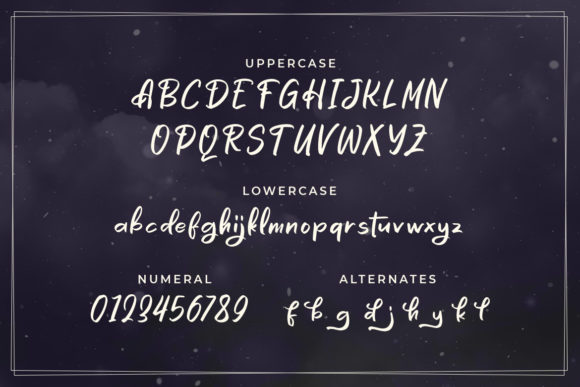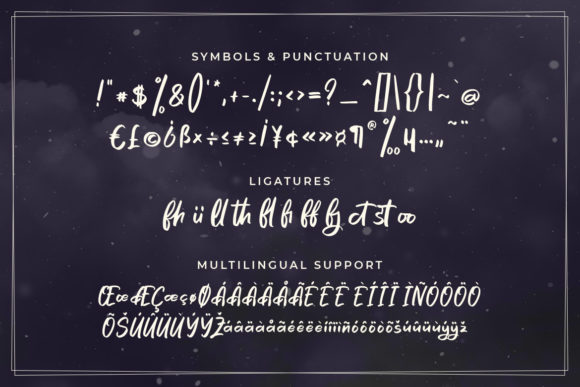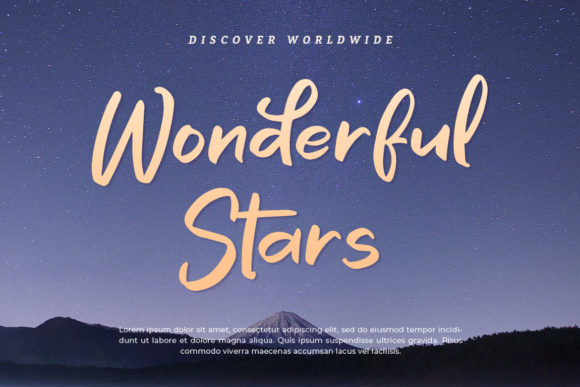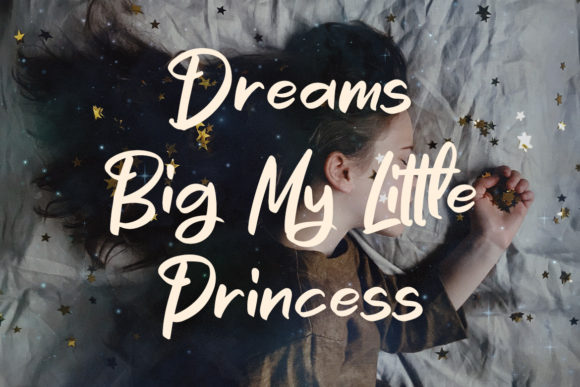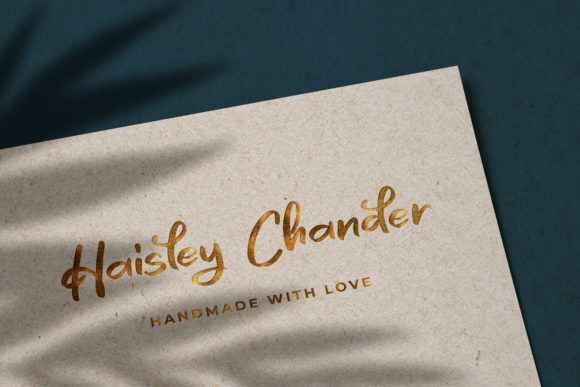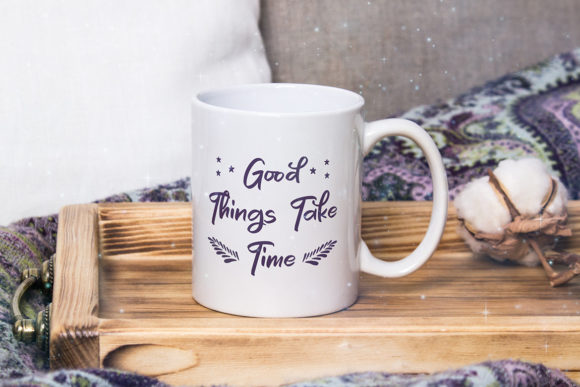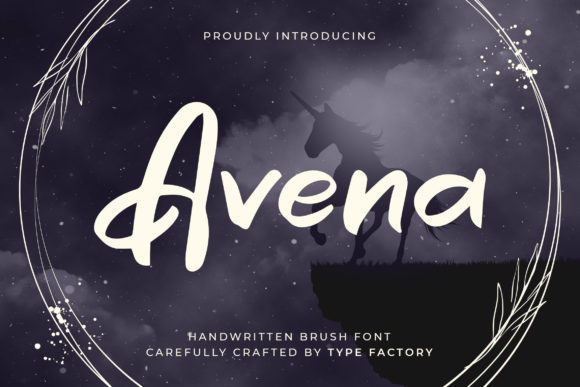
Avena Font: Elevate Your Creativity with Elegance
In the world of typography, few fonts manage to capture the essence of elegance and creativity as effortlessly as Avena Font. This magical script font is carefully crafted with a touch of sophistication, making it an ideal choice for designers, crafters, and anyone looking to add a dash of artistry to their projects. Whether you’re curating a visually appealing Instagram feed or working on DIY projects that demand a personal touch, Avena Font is your gateway to transforming creative ideas into true pieces of art.
The Essence of Avena Font
Avena Font stands out in the realm of script fonts due to its unique blend of fluidity and precision. Each letter is meticulously designed to flow seamlessly into the next, creating a harmonious and visually appealing text that captures the reader’s attention. The font’s elegance is not just in its aesthetic appeal but also in its versatility, making it suitable for a wide range of applications, from digital media to handmade crafts.
Applications of Avena Font
Instagram and Social Media
In the age of visual storytelling, standing out on social media platforms like Instagram is crucial. Avena Font offers a distinctive style that can elevate your posts, stories, and captions, making your content more engaging and recognizable. Its elegant script can add a personal touch to your digital presence, setting you apart from the crowd.
DIY Projects and Crafting
For crafters and DIY enthusiasts, Avena Font opens up a world of creative possibilities. Whether you’re working on handmade cards, crafting personalized gifts, or creating decorative items, this font can add a sophisticated and artistic element to your projects. Its calligraphy script style lends itself beautifully to handwriting and drawing, making your DIY endeavors truly special.
Graphic Design and Art
Graphic designers will appreciate Avena Font for its artistic value and flexibility. It can be used in a variety of design projects, including branding, packaging, and advertising, where a touch of elegance and personality is desired. The font’s unique character can help in creating memorable and impactful designs that resonate with audiences.
Why Choose Avena Font?
- Elegance and Versatility: Avena Font combines elegance with versatility, making it suitable for a wide range of creative projects.
- Easy to Read: Despite its script nature, Avena Font is designed to be clear and easy to read, ensuring your message is conveyed effectively.
- Unique Style: The font’s distinctive style ensures that your projects stand out, adding a personal and artistic touch.
- User-Friendly: Avena Font is easy to use, even for those with limited design experience, making it accessible to a broad audience.
Tips for Using Avena Font
Pairing with Other Fonts
To maximize the impact of Avena Font, consider pairing it with complementary fonts. A combination of script and sans-serif fonts can create a balanced and visually appealing design.
Adjusting Font Sizes
Experiment with different font sizes to add hierarchy and emphasis to your text. Larger sizes can be used for headings, while smaller sizes are ideal for body text.
Color Choices
The choice of color can significantly affect the overall look of your project. Neutral colors like black, white, and pastels can highlight the font’s elegance, while bold colors can add a playful touch.
Avena Font is more than just a script font; it’s a tool for creativity and self-expression. Its magical blend of elegance and versatility makes it an invaluable asset for designers, crafters, and anyone looking to add a touch of artistry to their projects. Whether you’re enhancing your social media presence, working on DIY crafts, or delving into graphic design, Avena Font is your partner in creating beautiful, memorable pieces that stand out. Embrace the elegance of Avena Font and watch your creative ideas transform into true works of art.